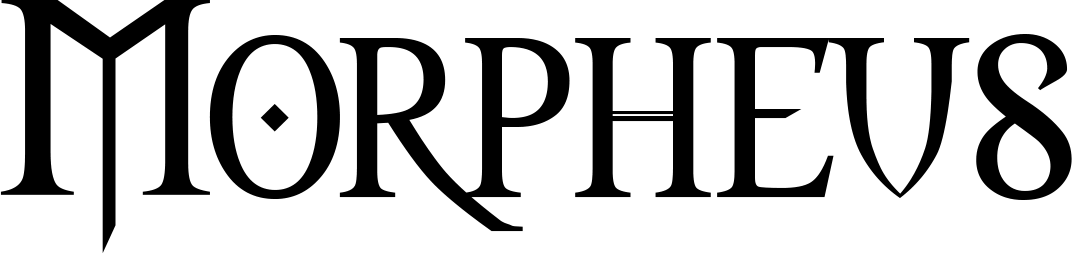
Morpheus Font
Morpheus is a gothic font that looks mysterious and unusual, featuring bold, angular characters. It has two versions of letters to offer. One consists of capitalized letters, and the other is a mixture of both uppercase…
Morpheus is a gothic font that looks mysterious and unusual, featuring bold, angular characters. It has two versions of letters to offer. One consists of capitalized letters, and the other is a mixture of both uppercase and lowercase. Whenever you want a little bit of mystery, you can go with Morpheus in your book covers, games, posters, product packaging, and any other projects of yours.